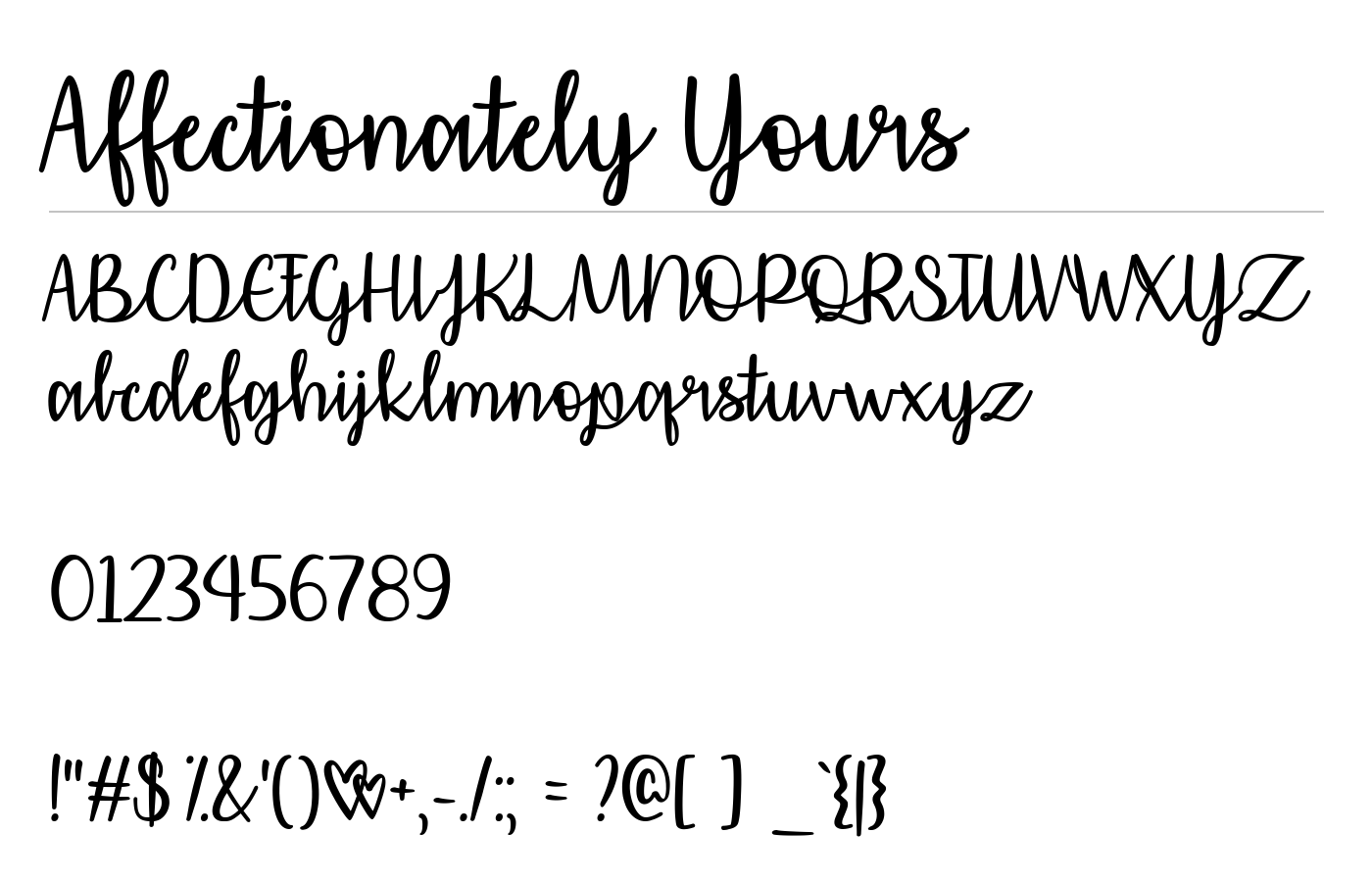
Affectionately Yours is a playful, handwritten script font with a casual and friendly feel. Its tall, slightly condensed letterforms feature a smooth, consistent stroke weight and charming loops, making it perfect for personal, warm, and inviting designs like greeting cards, invitations, or branding that seeks a personal touch. This font shines in headlines and decorative text where a natural, heartfelt aesthetic is desired.
Affectionately Yours Font
About Affectionately Yours Font